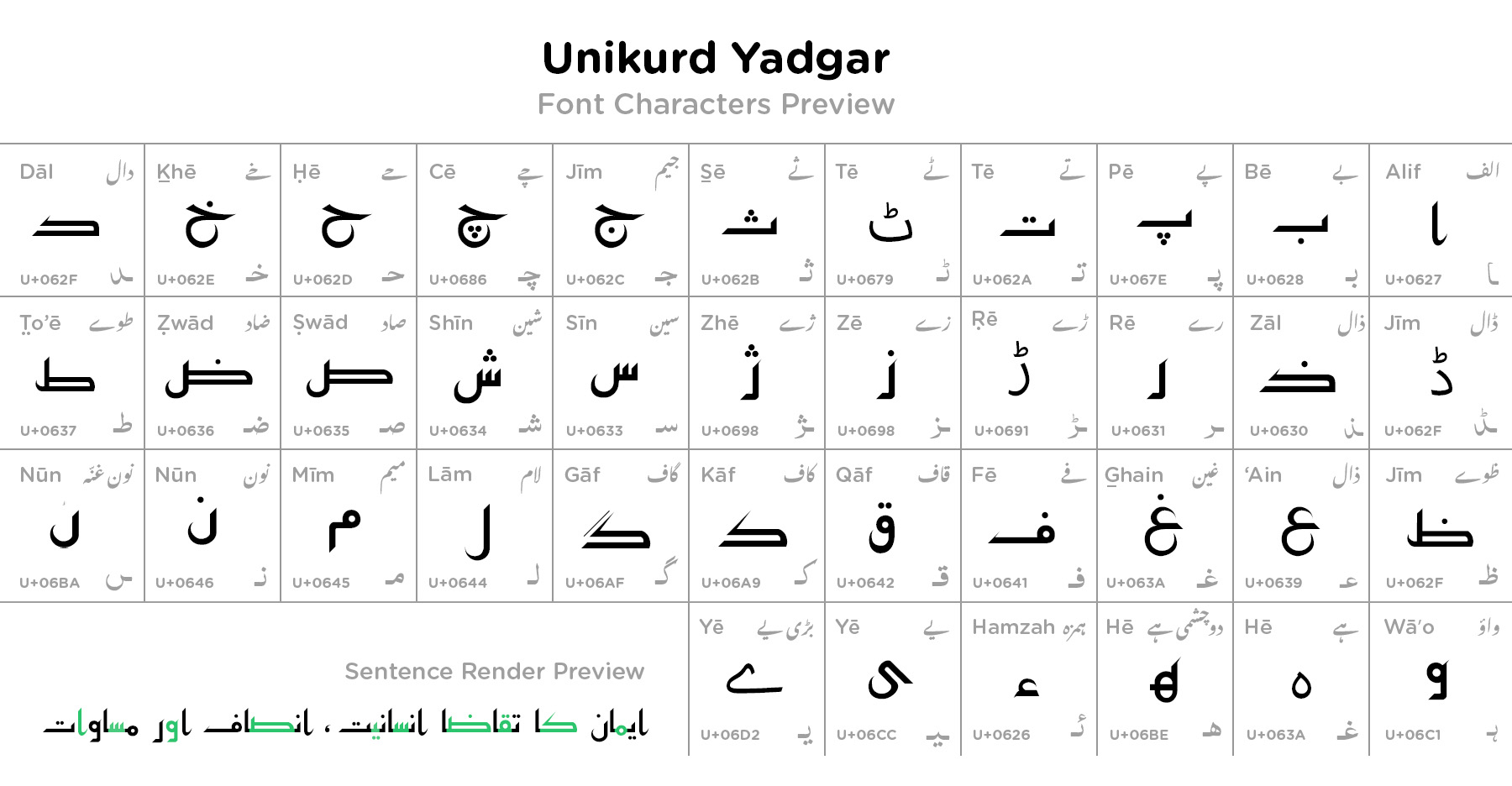
Unikurd Yadgar, crafted by Bardaqani, Ardawan, and Azad and released by the Kurd It Group on October 26, 2012, stands as a bold and decorative Turkish font inspired by the Naskh script with subtle influences from Kufic styles. This font showcases a distinct blend of elements from Divani and Kufic scripts, lending it a unique geometric and decorative flair. Featuring 358 characters and 339 glyphs, this Turkish font offers support in various languages, including Arabic, Latin, Greek, and Turkish. Its bold and contrasting wide and narrow letterforms, adorned with decorative pointy edges, giving a sense of elegance and sophistication.